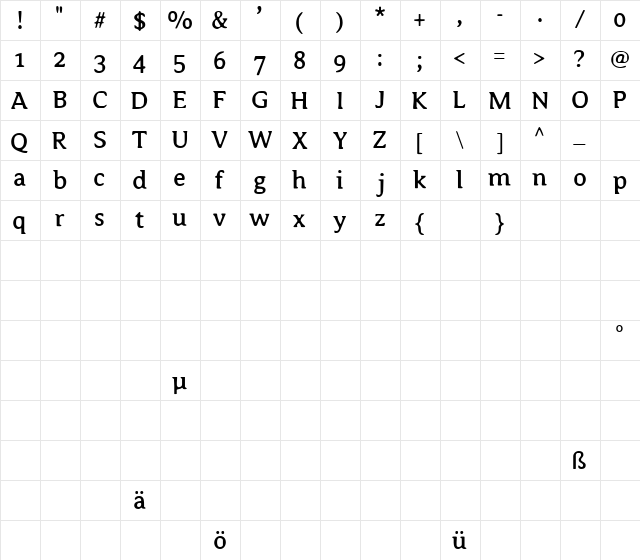
Copyshop Regular
Design Context for Copyshop Typeface
Copyshop takes a measured approach to typography — its balanced proportions and neutral character make it a reliable workhorse for both digital and print work.